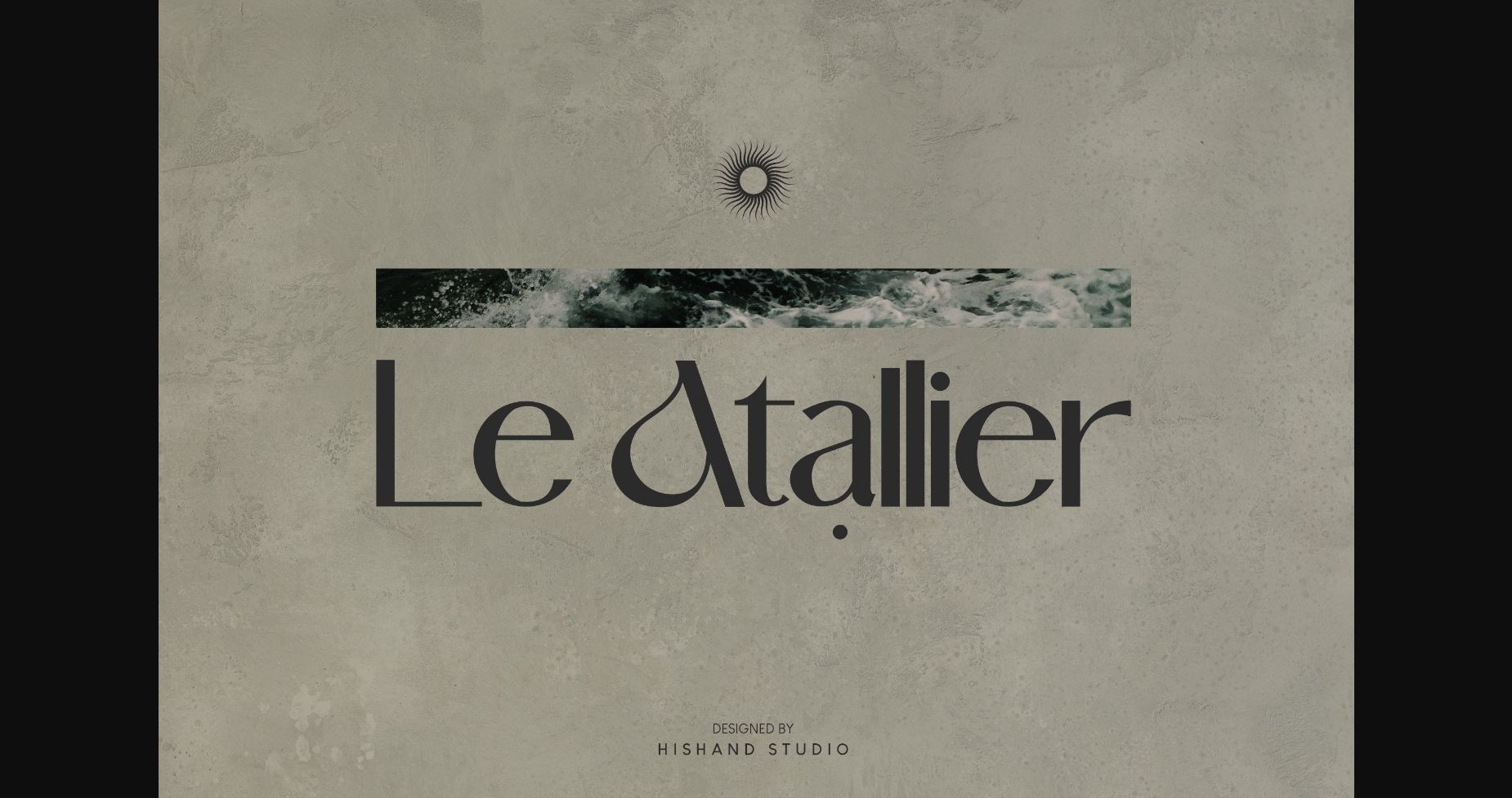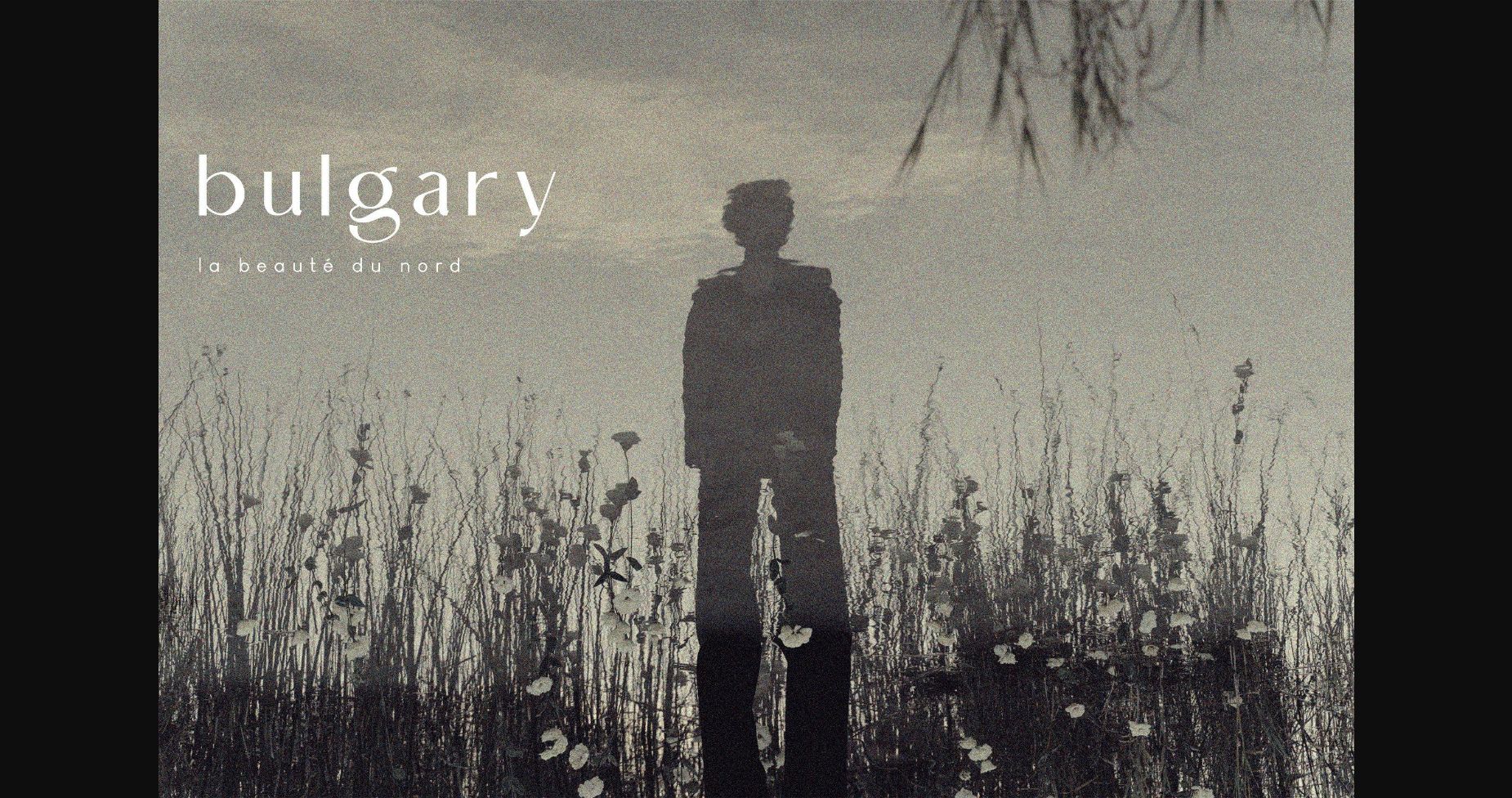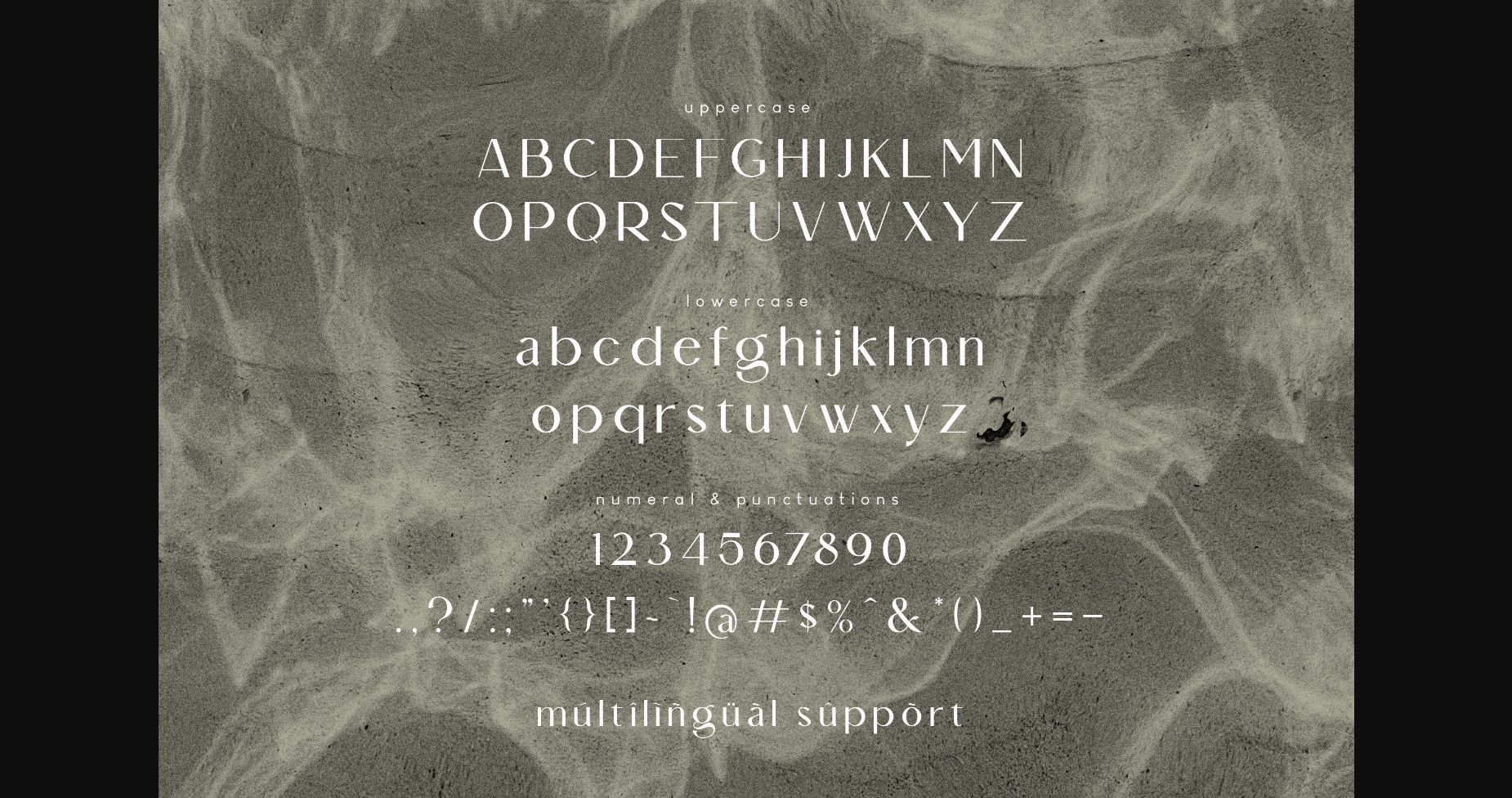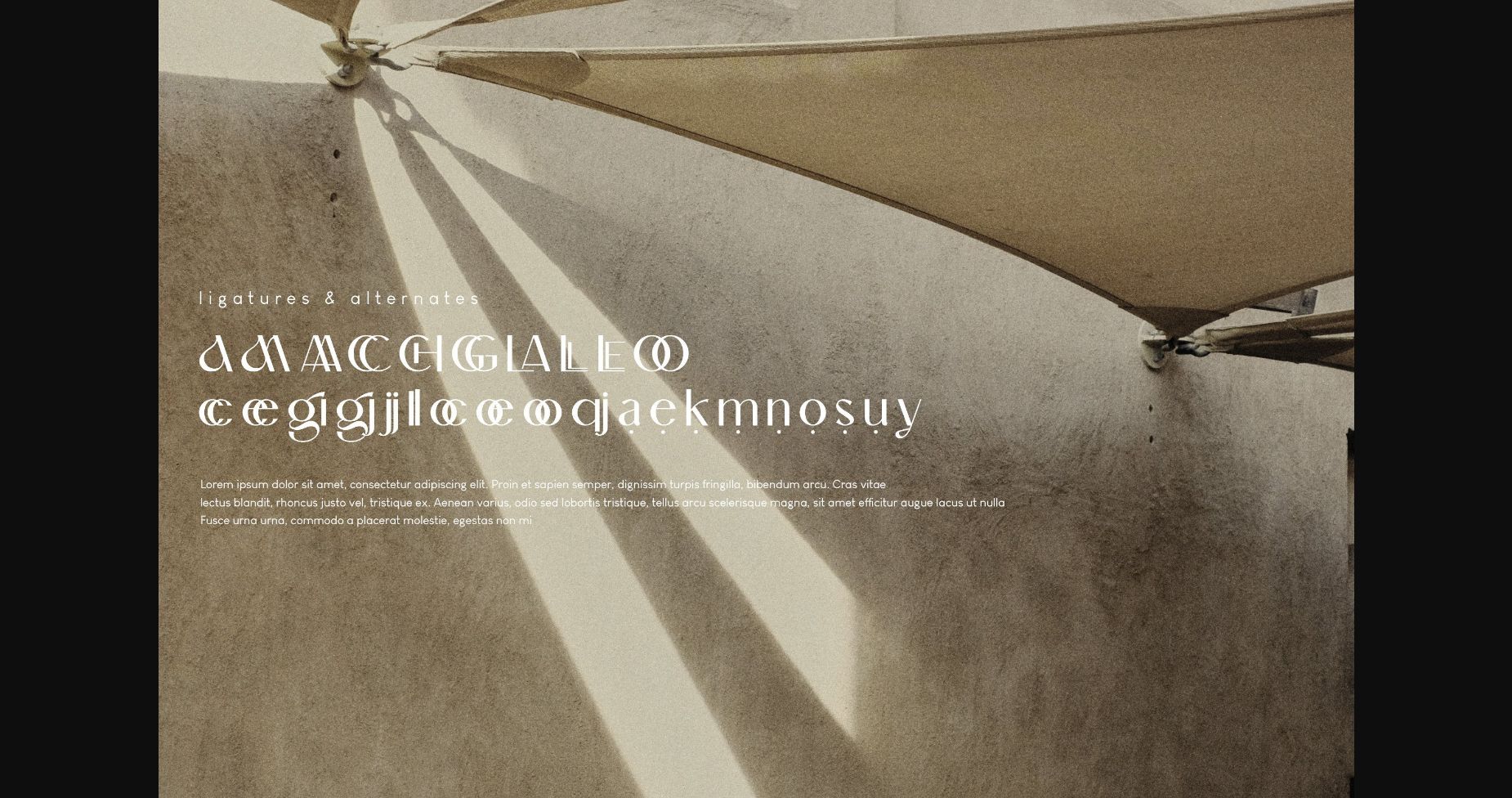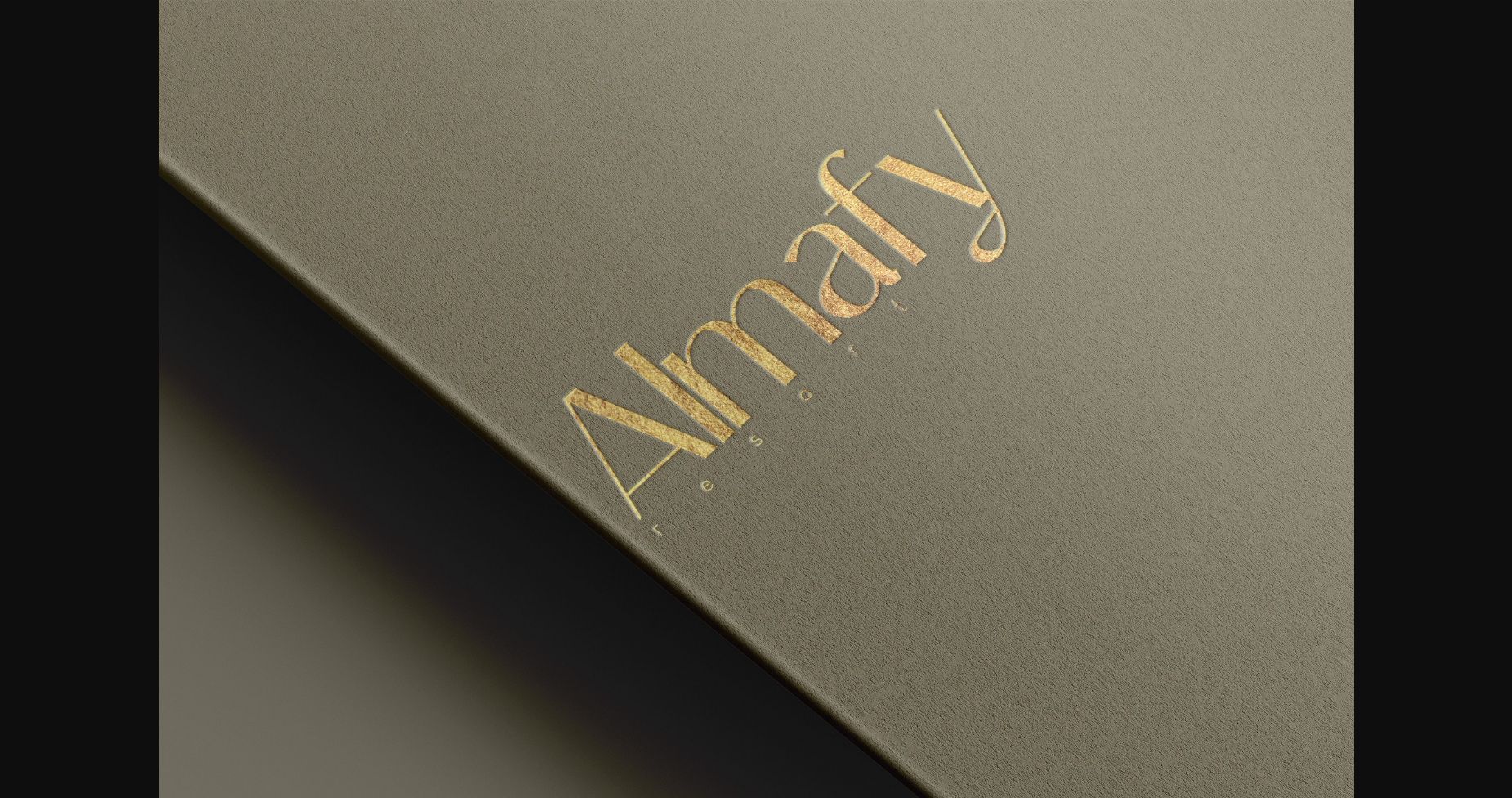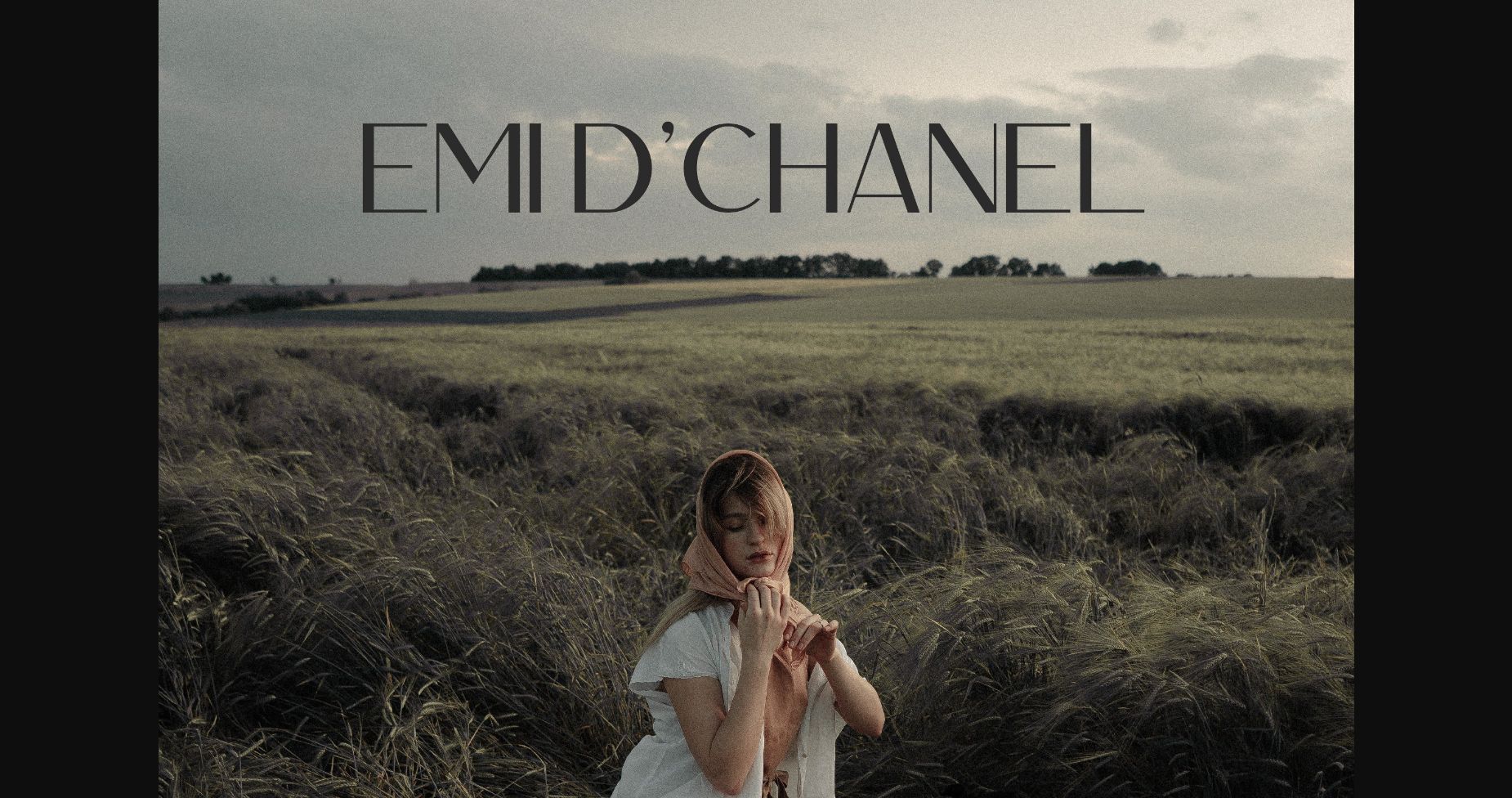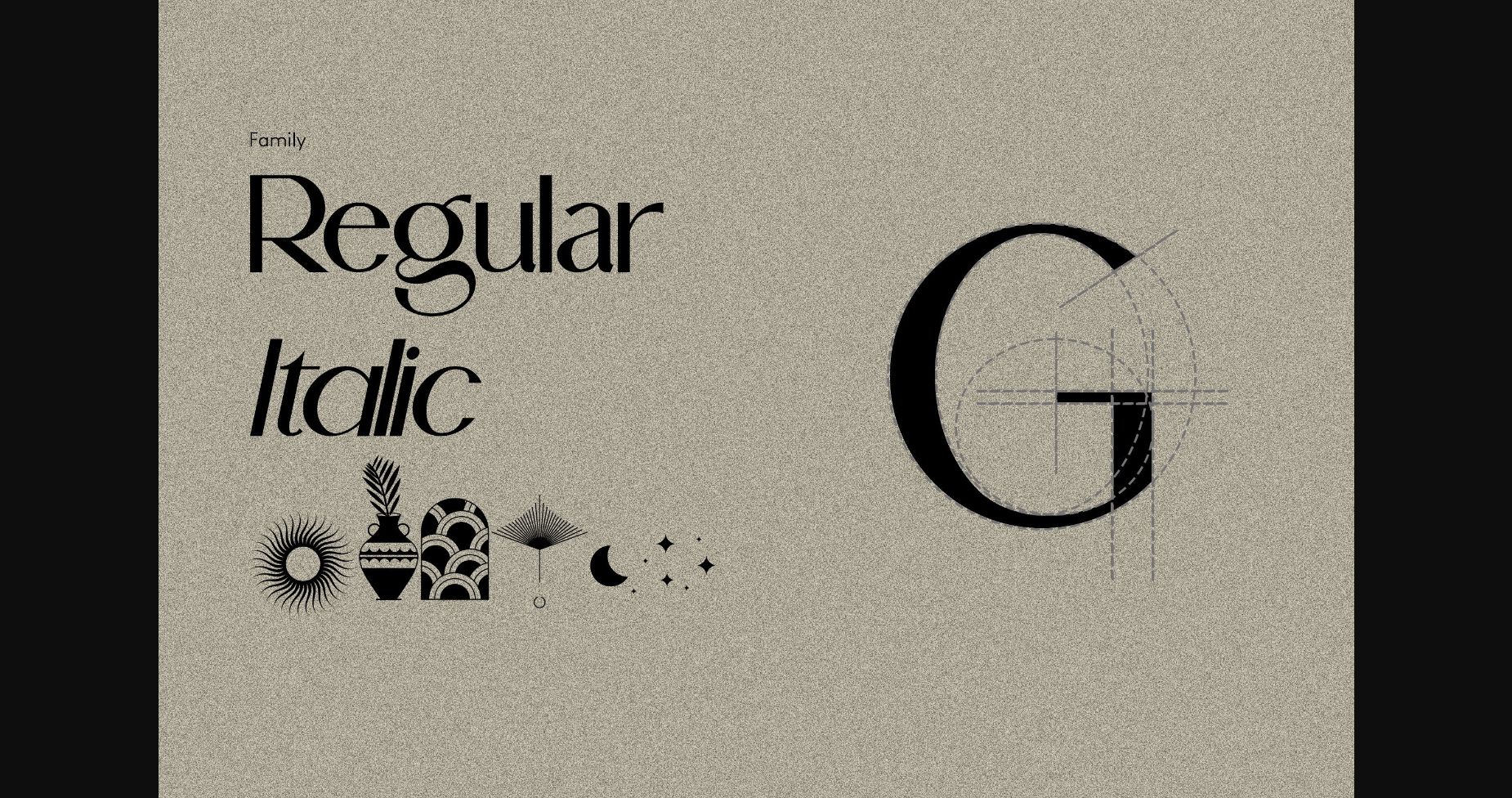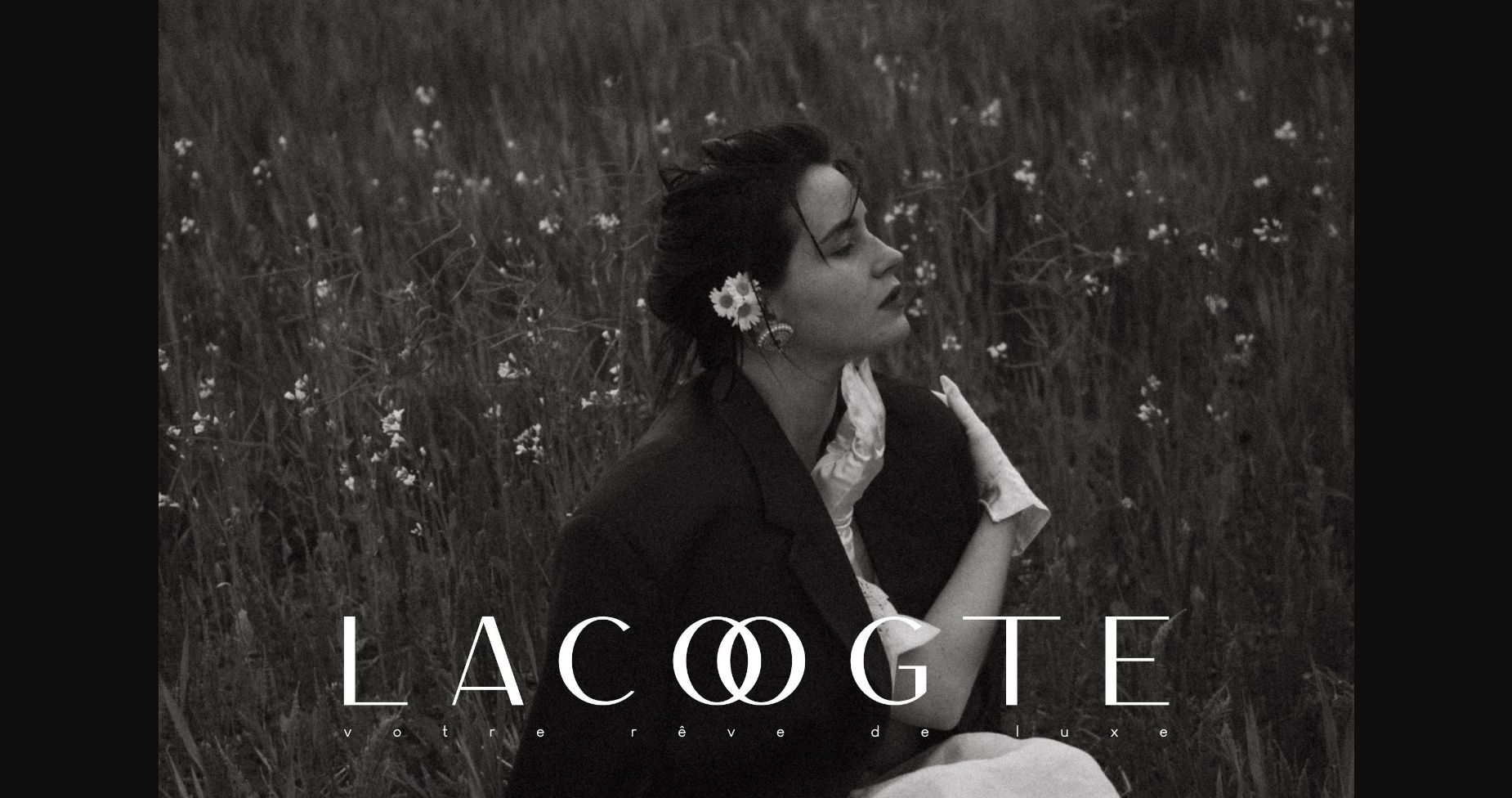
About Le Atallier Font
Le Atallier is an elegant and incredibly stylish sans serif font. It will add a luxury spark to any design project that you wish to create! This font is PUA encoded which means you can access all of the amazing glyphs and ligatures with ease!